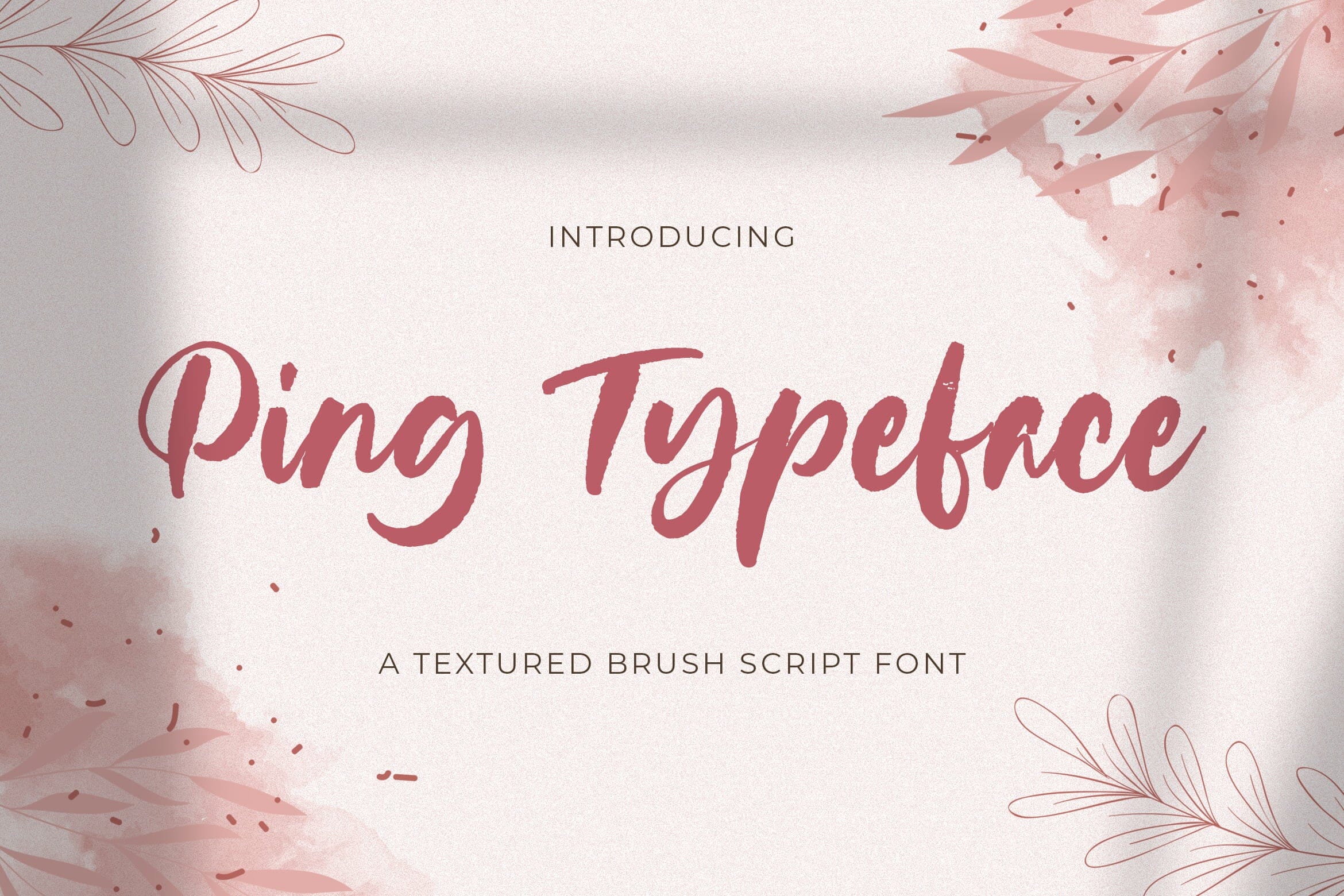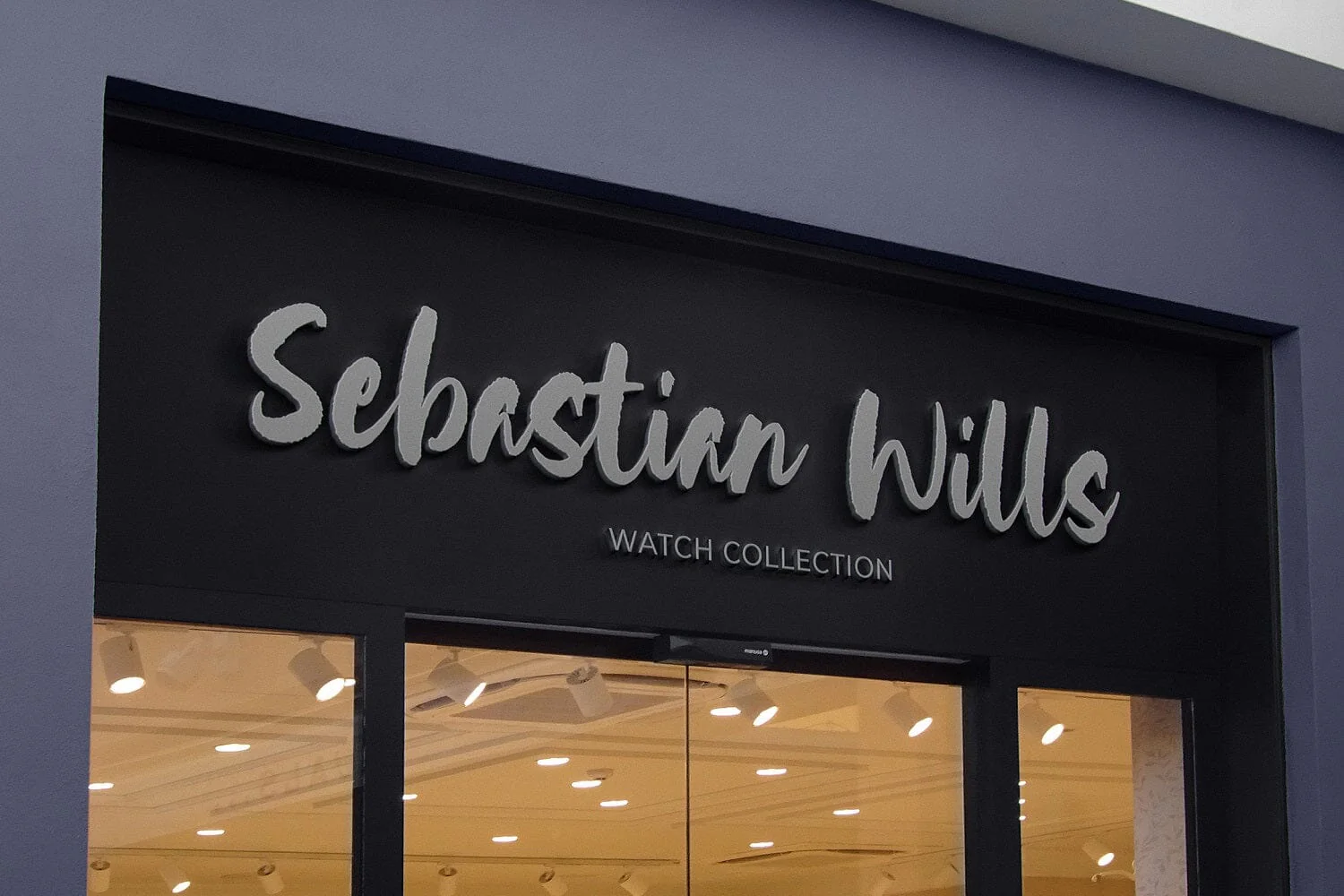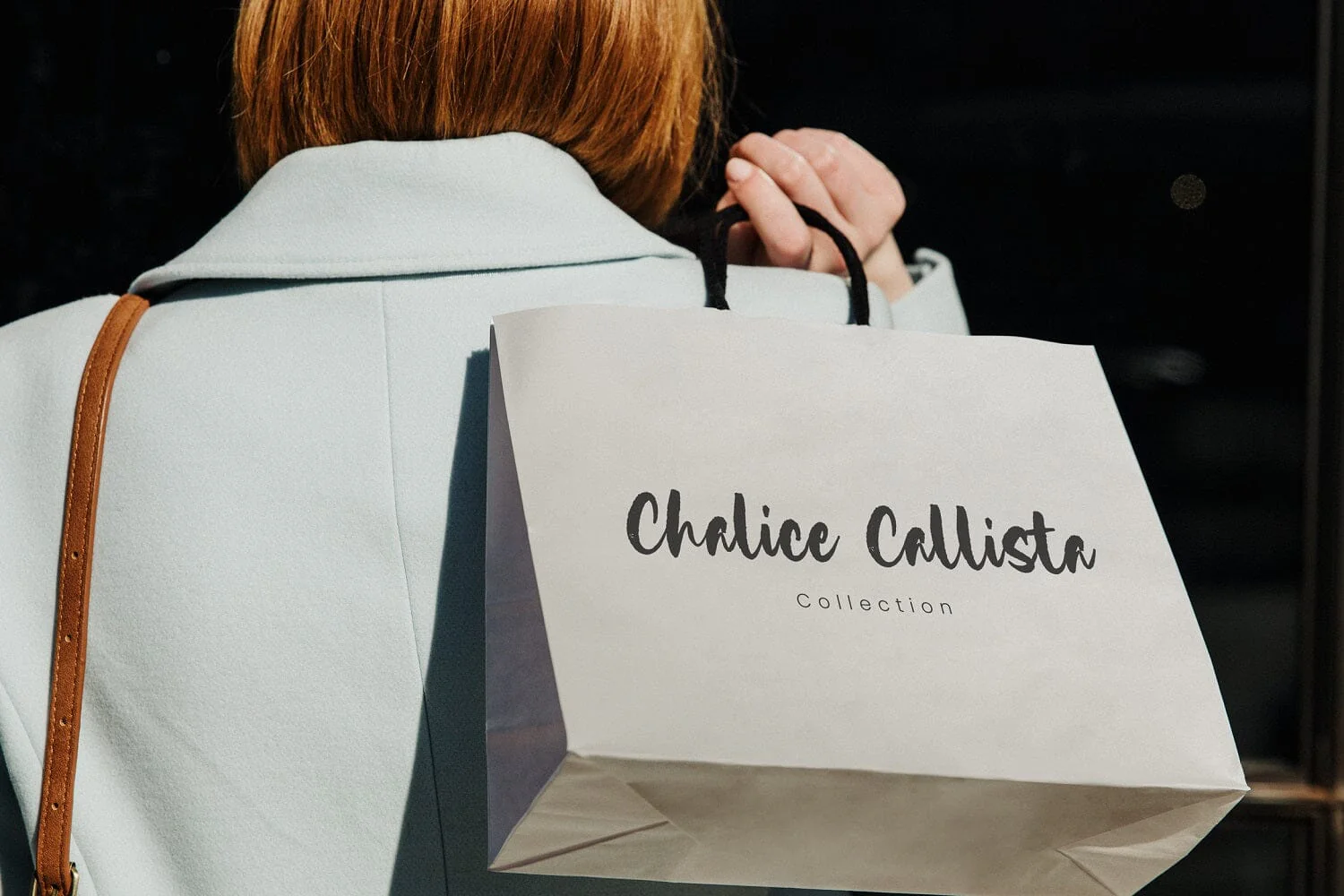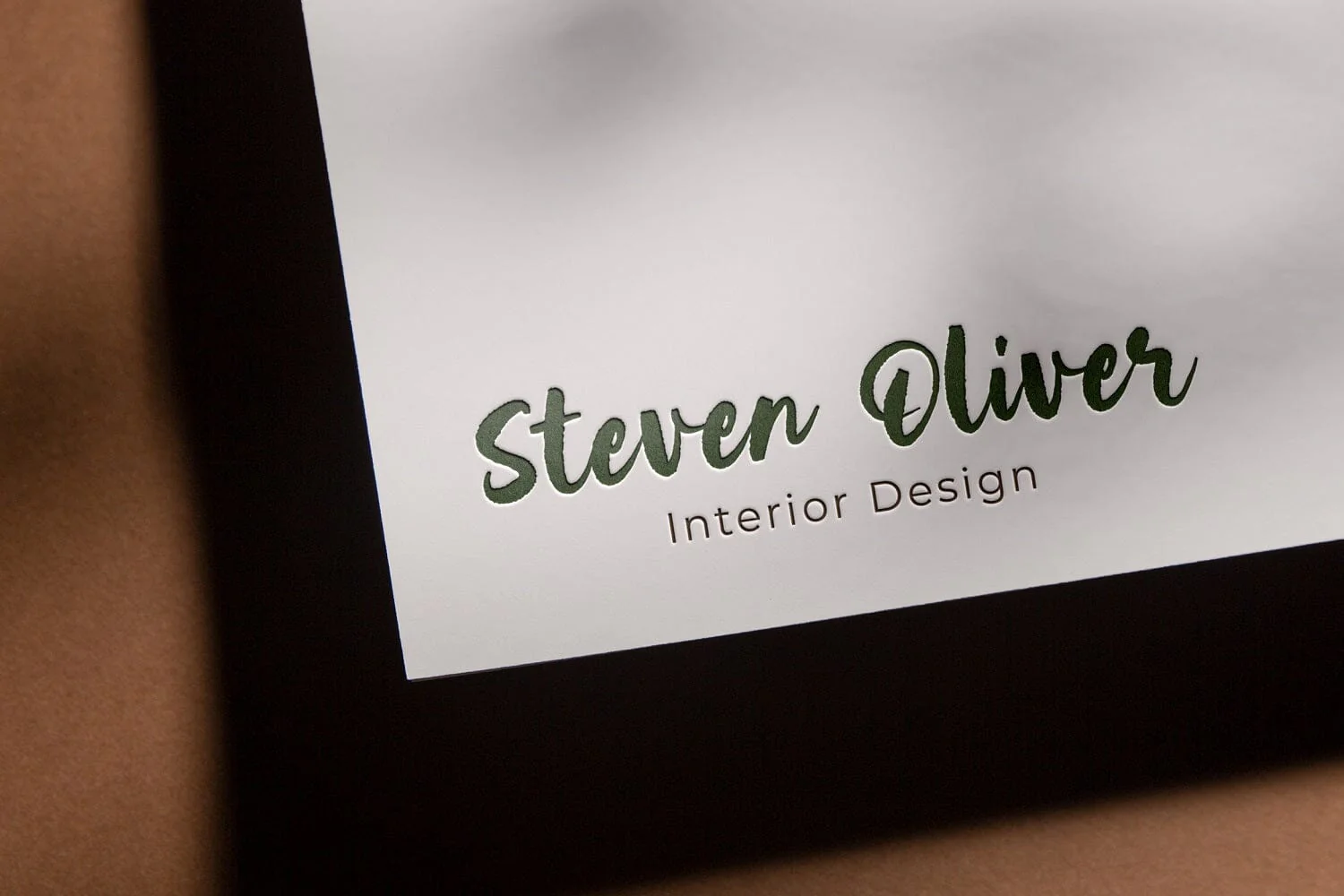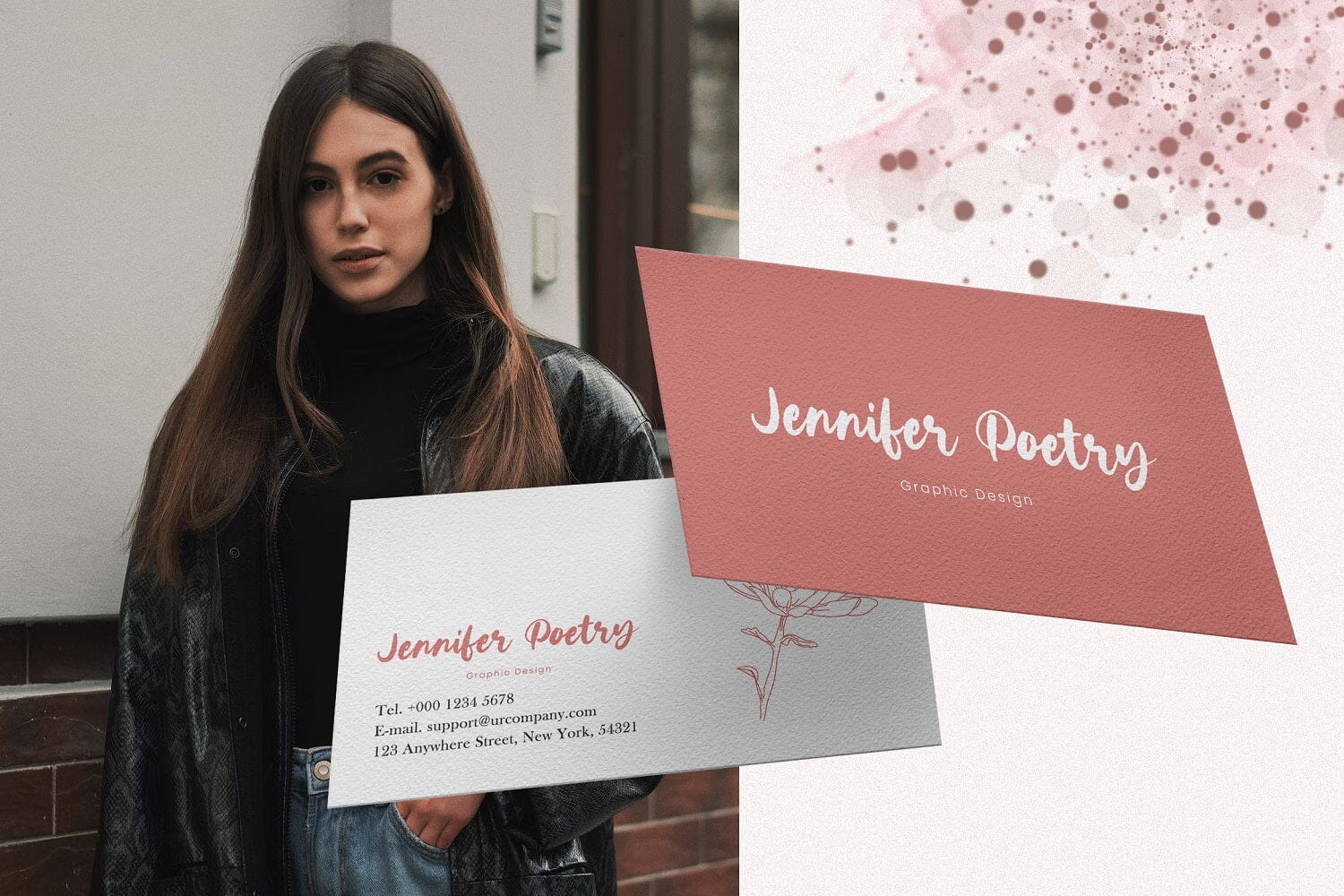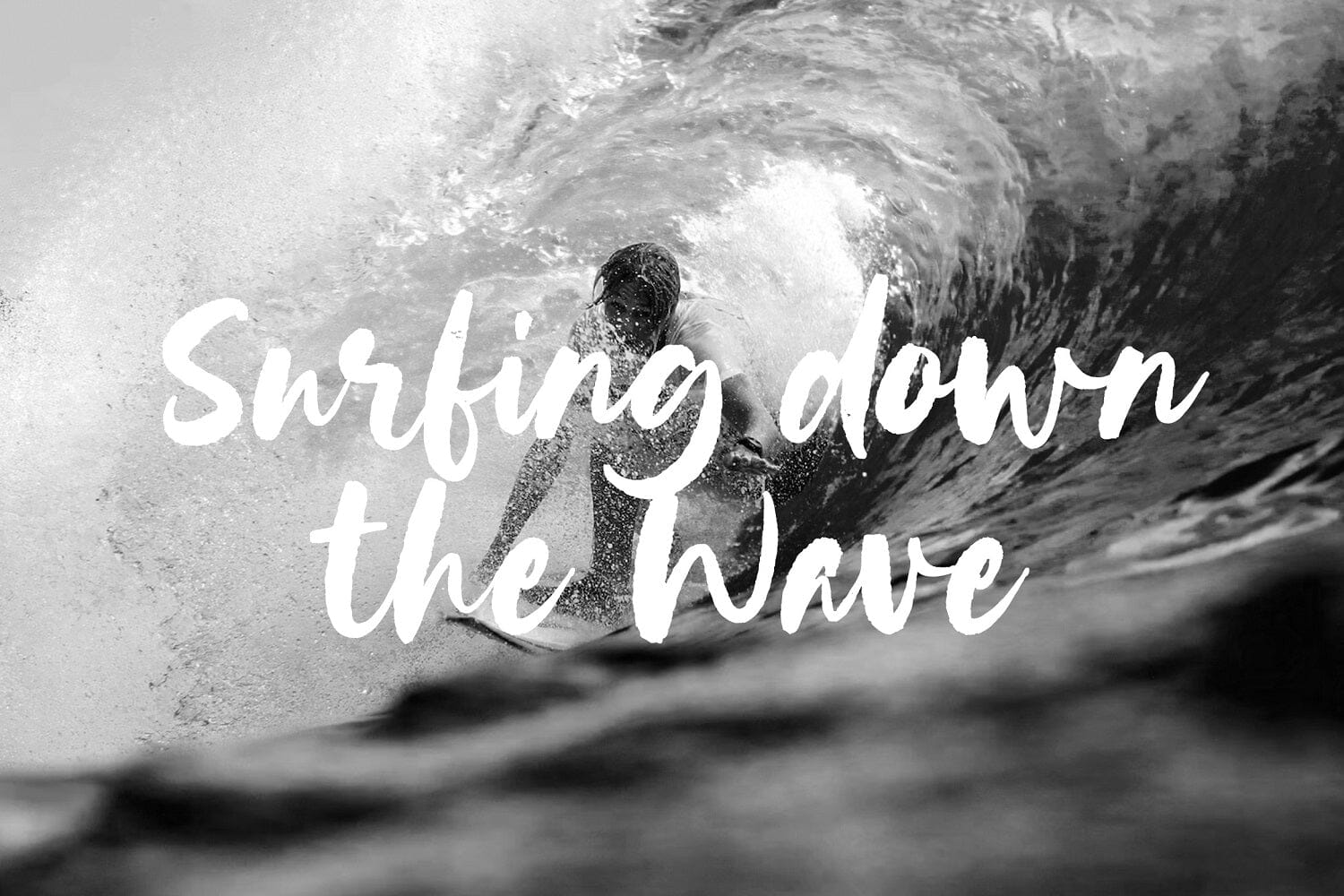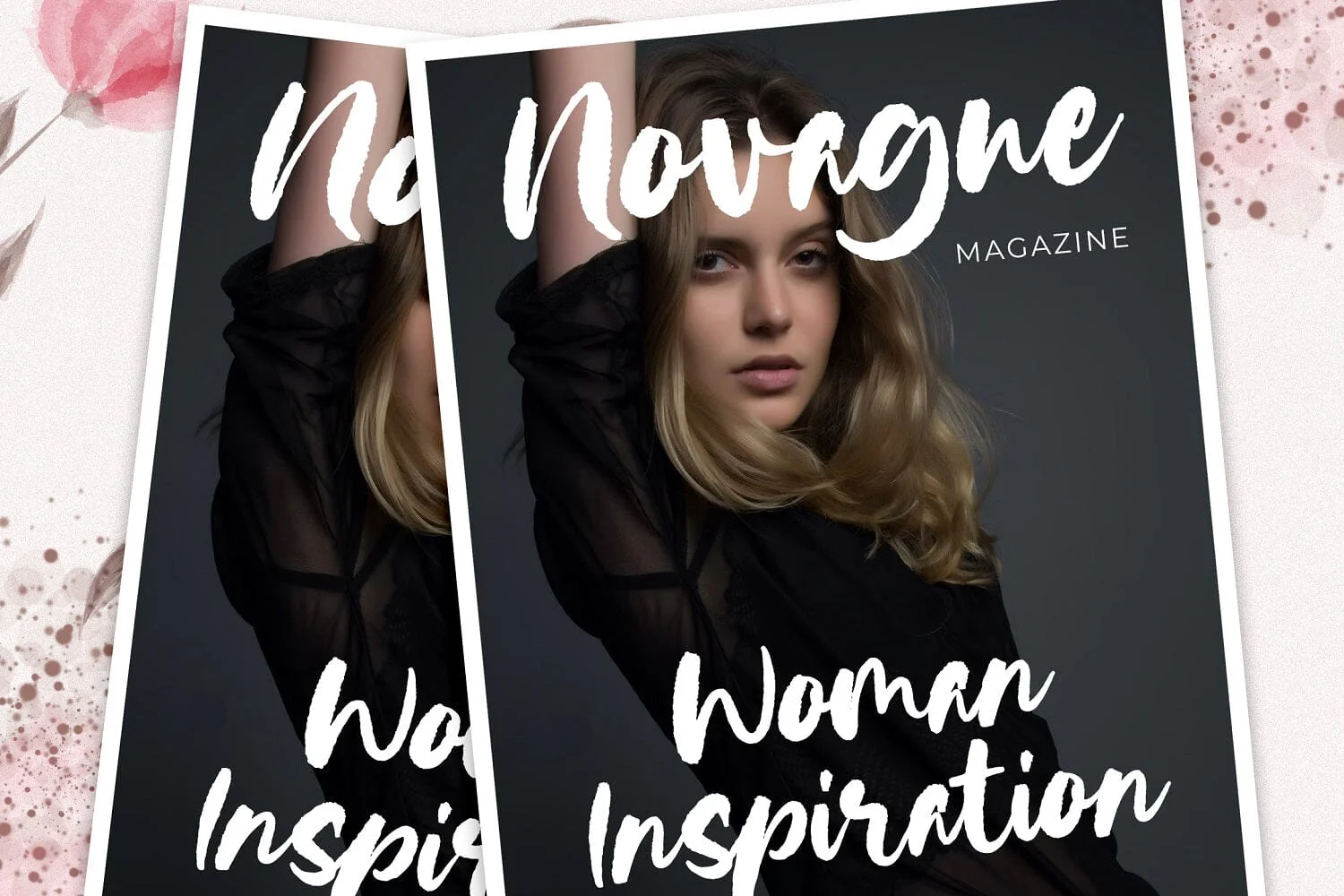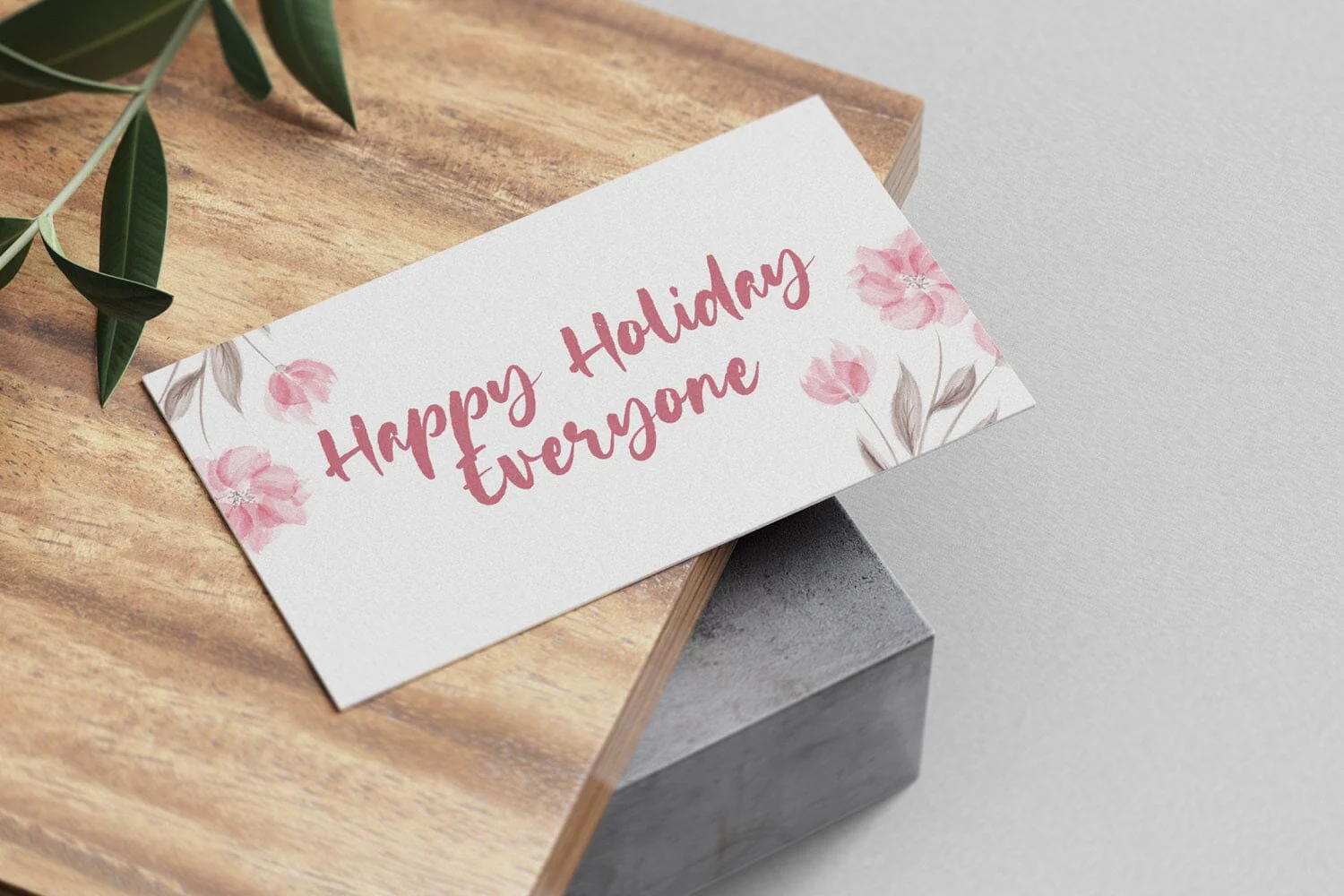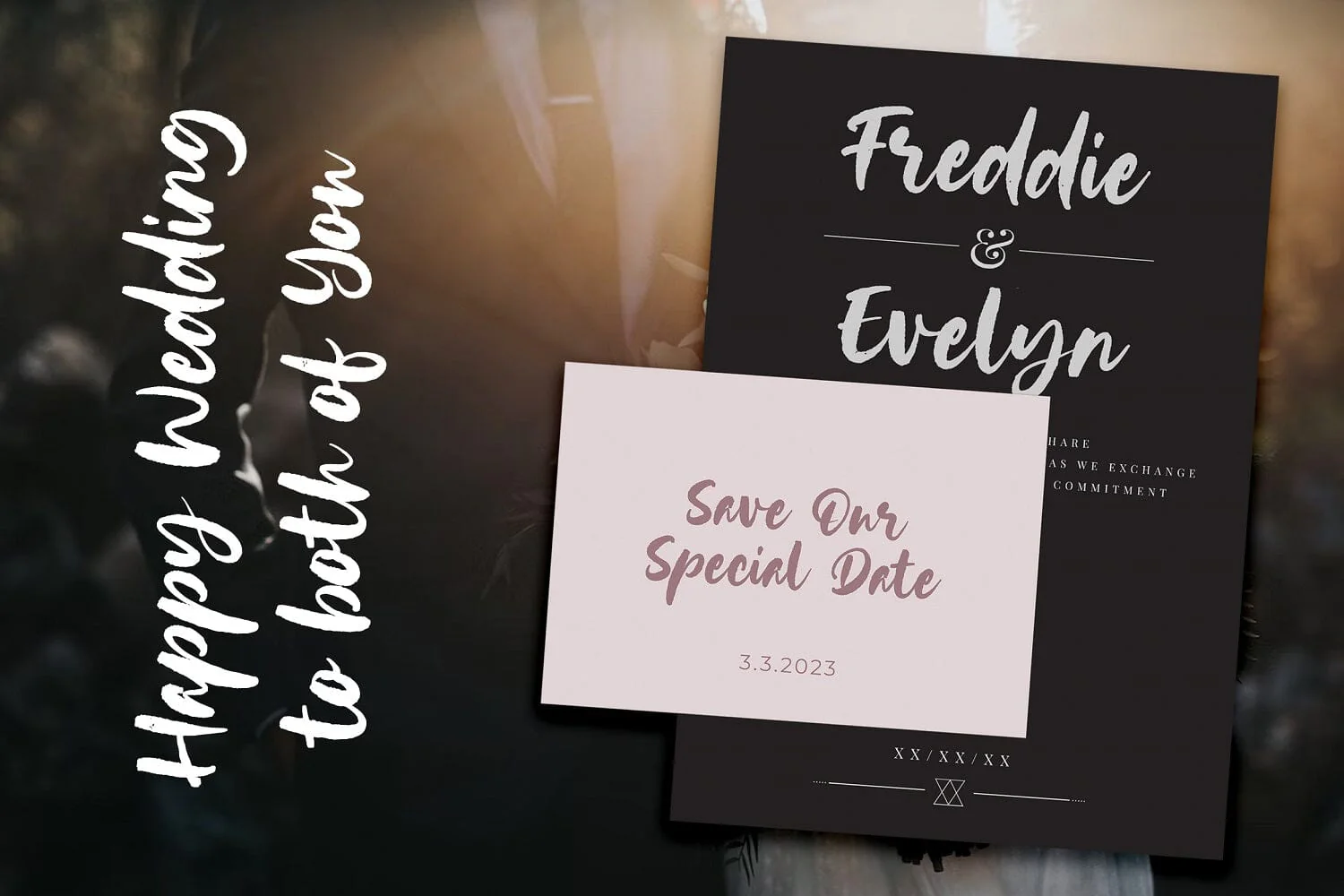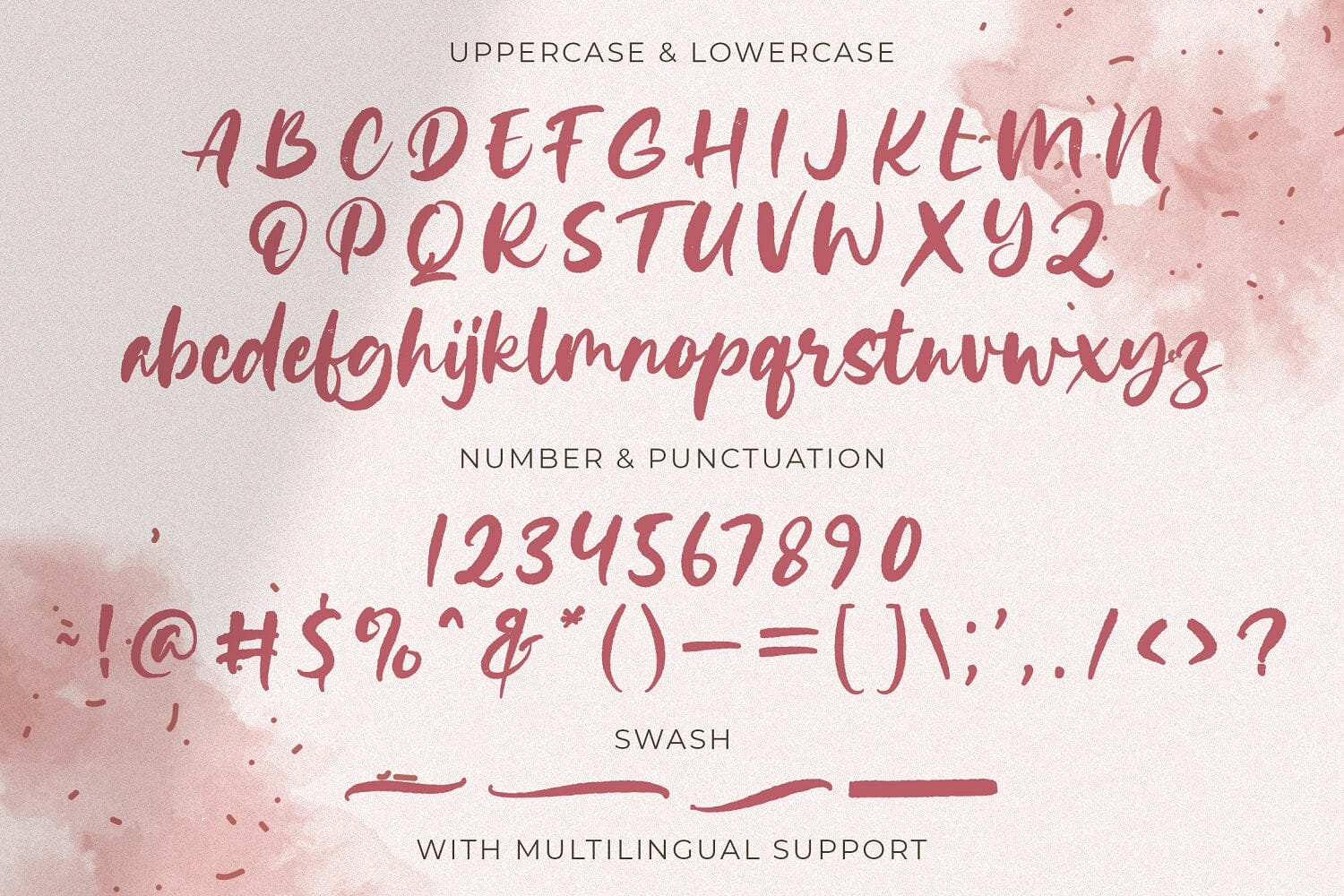
Ping Typeface - Handbrush Font
Introducing Ping Typeface - HandBrush Font
Ping Typeface is a textured handbrush font. Ping Typeface is a flowing and stylish display brush font, created with the help of a brush pen. Get inspired by its unique and beautiful style and add it to your favorite designs!
- Swash
Introducing Ping Typeface - HandBrush Font
Ping Typeface is a textured handbrush font. Ping Typeface is a flowing and stylish display brush font, created with the help of a brush pen. Get inspired by its unique and beautiful style and add it to your favorite designs!
- Swash